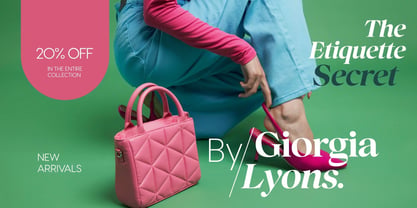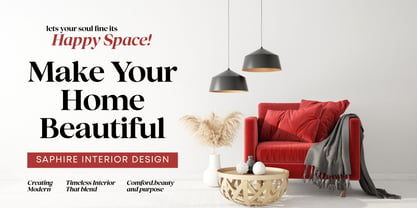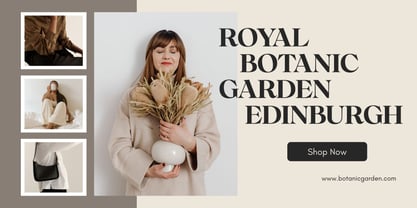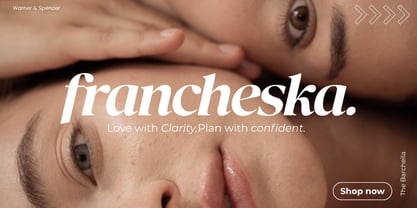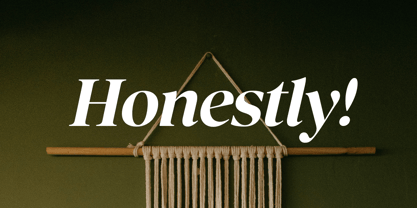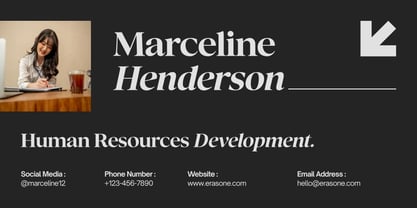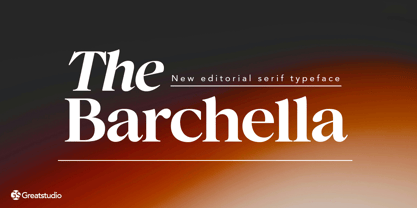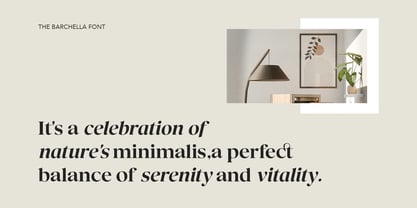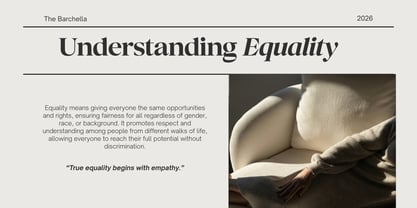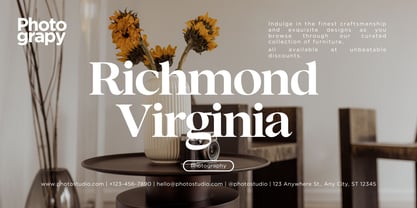
The Barchella
The The Barchella Font Family was designed by Mulkan Nazir and published by Great Studio. The Barchella contains 4 styles and family package options. More about this family
The Barchella is a new editorial serif with all clean and soft lines, tight curves, and a trendy elegant look! The Barchella font is a refined, high-end typeface that exudes sophistication and timeless elegance. Blending smooth, flowing curves with sharp, deliberate strokes, it strikes the perfect balance between classic luxury and modern prestige. Every letterform is meticulously crafted to convey grace, confidence, and exclusivity.
Whether used in uppercase for bold impact or in elegant scripts for delicate detail, The Barchella is designed to elevate any visual experience. Its elegant flair and luxurious aura make it a standout choice for upscale branding and premium designs.
The Barchella font comes in two variants: Regular and Italic, each with a Condensed style. This font is perfect for your design needs, such as creating designs with a nostalgic feel that still look clean and elegant—for example, for headlines, magazines, logos, packaging, editorial design, and much more.